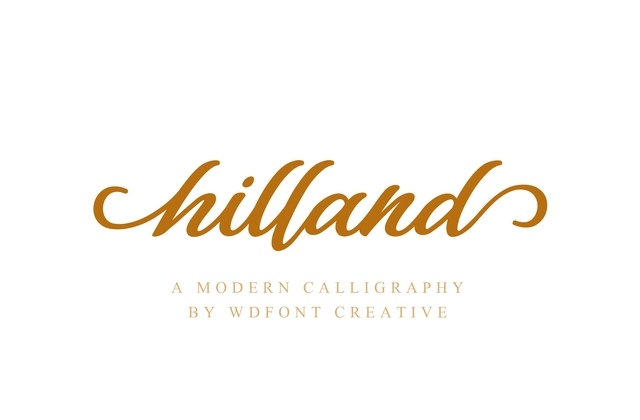
Hilland Font
This Hilland Font is perfect for mountain resort branding, highland tourism promotions, outdoor adventure companies, scenic landscape photography, hillside restaurant signage, elevated real estate developments, alpine lodge communications, countryside retreat materials, mountain sports equipment, and elevated lifestyle applications.
What makes this Hilland Font exciting is its elevated sophistication that captures the majestic beauty and inspiring heights of highland landscapes and mountain excellence. The font features structured letterforms with elevated characteristics that convey natural grandeur, scenic beauty, and mountainous strength. Its highland character and elevation-inspired design make it ideal for brands seeking to communicate natural elevation, scenic excellence, and mountain majesty in outdoor and tourism markets.
The Hilland Font family includes light, regular, medium, and bold weights with mountain alternates, highland variants, and elevated flourishes. This comprehensive scenic font family provides designers with majestic typographic tools to create elevated compositions while maintaining the highland character essential for outdoor tourism and mountain lifestyle brand communications.
Mountain resorts and outdoor adventure companies consistently choose Hilland Font Free Download for projects requiring authentic highland appeal and scenic excellence. This font's distinctive elevated character perfectly captures the natural grandeur and mountain beauty that resonate with audiences who appreciate highland landscapes, outdoor adventures, and brands that embody elevated living and scenic mountain excellence.
The majestic construction of Hilland Font showcases expertly designed letterforms with highland proportions that ensure exceptional elevation across all outdoor applications. Its mountainous appearance and scenic character create memorable impressions while maintaining the readability necessary for effective mountain communication and highland tourism materials.
Professional designers appreciate how Hilland Font brings immediate highland authenticity and scenic authority to brand communications. The font's elevated nature allows organizations to communicate mountain excellence and highland beauty while maintaining the professional quality necessary for effective positioning in outdoor tourism and mountain lifestyle markets.
The inspiring appeal of Hilland Font makes it particularly effective for brands emphasizing mountain living, highland adventures, and elevated experiences. Its majestic character resonates strongly with audiences who appreciate scenic landscapes, mountain culture, and brands that represent the inspiring beauty and elevated lifestyle of highland environments.
Whether developing branding for mountain tourism companies or creating materials for highland lifestyle brands, Hilland Font Free Download provides the elevated typographic foundation that mountain brands need to communicate their highland excellence, scenic beauty, and the majestic achievement that defines mountain living and elevated outdoor experiences.